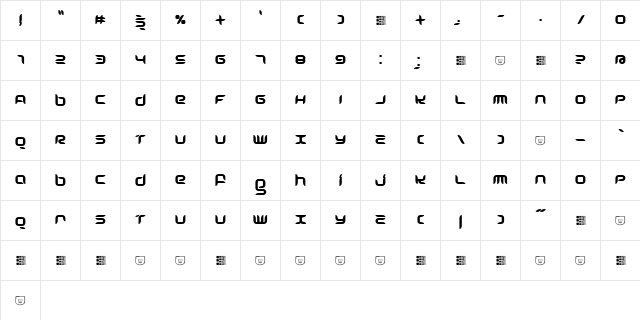
Freshbot Regular Font Preview
Freshbot Regular
Design Context for Freshbot Typeface
Freshbot is a composed and adaptable typeface that performs quietly and consistently across a wide range of design contexts.